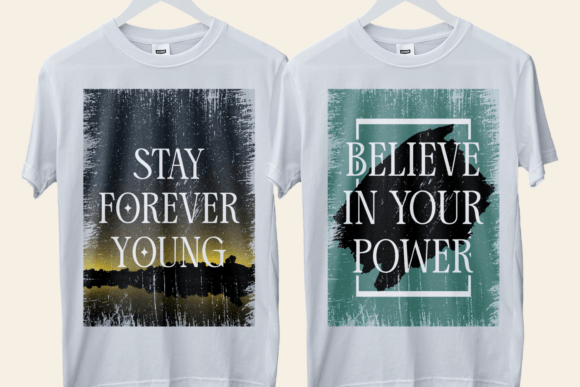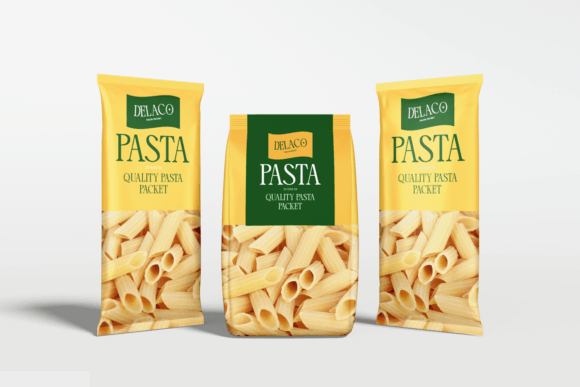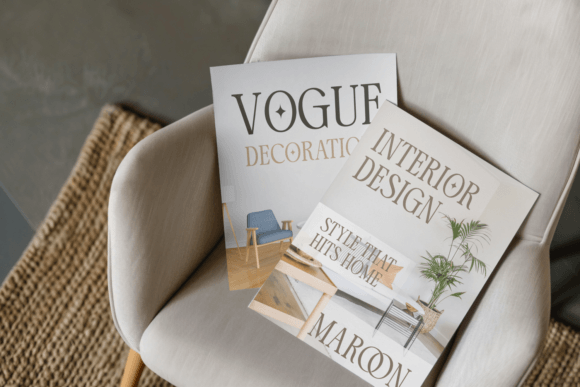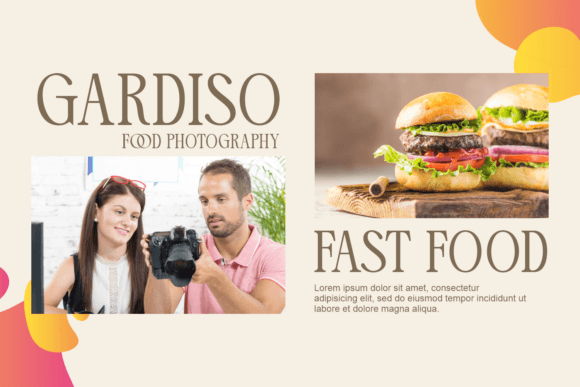
Introducing Avemoon Font: Elevate Your Designs with Timeless Elegance
In the world of typography, fonts play a crucial role in conveying the tone and personality of a brand or design. For those seeking a typeface that exudes sophistication, style, and classic charm, Avemoon Font is an exceptional choice. This beautifully crafted serif font is designed to bring a touch of luxury and refinement to any design project, making it perfect for discerning designers and crafters.
The Essence of Avemoon Font
Avemoon Font is a masterpiece of typographic design, characterized by its graceful curves and refined details. This elegant serif font strikes the perfect balance between modern sophistication and traditional charm, making it an ideal choice for a wide range of applications. From luxury branding and editorial layouts to invitations and high-end packaging, Avemoon Font is the perfect companion for designers seeking to create stunning visual experiences.
Key Features of Avemoon Font
- Timeless Elegance: Avemoon Font boasts a classic, sophisticated look that never goes out of style. Its elegant serif design ensures that your designs will remain relevant and refined for years to come.
- Versatility: Whether you’re working on a luxury brand identity, an editorial layout, or a special invitation, Avemoon Font adapts seamlessly to any design project. Its versatility makes it an excellent addition to any designer’s font library.
- Readability: Despite its elegant appearance, Avemoon Font prioritizes readability. Its carefully crafted letterforms ensure that your text remains clear and easy to read, even in smaller sizes.
- Modern Sophistication: Avemoon Font brings a modern twist to traditional serif typography. Its subtle nuances and refined details give it a fresh, contemporary feel that’s perfect for designs that demand a touch of sophistication.
Applications of Avemoon Font
Avemoon Font’s versatility and elegance make it suitable for a wide range of design applications. Here are some of the most popular uses for this exceptional font:
- Luxury Branding: Establish a premium brand identity with Avemoon Font. Its sophisticated appearance makes it perfect for high-end logos, packaging, and marketing materials.
- Editorial Layouts: Elevate your editorial designs with Avemoon Font. Its elegant appearance and readability make it ideal for magazines, newspapers, and digital publications.
- Invitations and Events: Make a lasting impression with Avemoon Font. Its refined details and classic charm make it perfect for wedding invitations, event flyers, and formal announcements.
- Packaging and Product Design: Add a touch of sophistication to your product packaging with Avemoon Font. Its modern elegance and versatility make it suitable for a wide range of products, from cosmetics to luxury goods.
Why Choose Avemoon Font?
- Unique and Distinctive: Avemoon Font offers a unique and distinctive look that’s sure to set your designs apart from the crowd.
- High-Quality Design: Crafted with precision and attention to detail, Avemoon Font is a high-quality typeface that reflects the highest standards of design.
Avemoon Font is a timeless and elegant serif font that brings sophistication, style, and classic charm to any design project. Its versatility, readability, and modern sophistication make it an exceptional choice for designers and crafters seeking to elevate their designs. Whether you’re working on luxury branding, editorial layouts, or special invitations, Avemoon Font is the perfect companion for creating stunning visual experiences. Discover the beauty of Avemoon Font and take your designs to new heights of elegance and refinement.